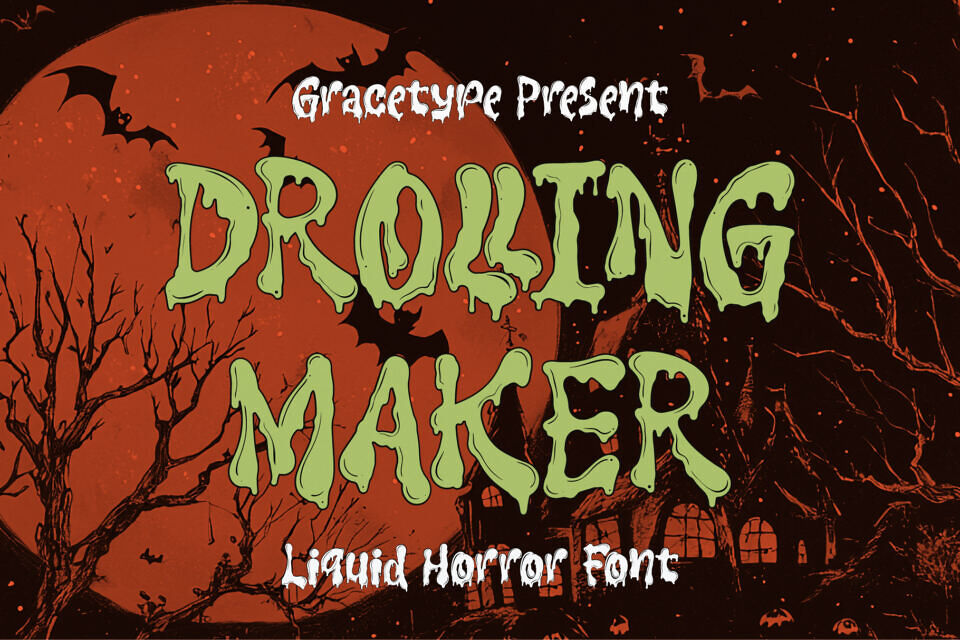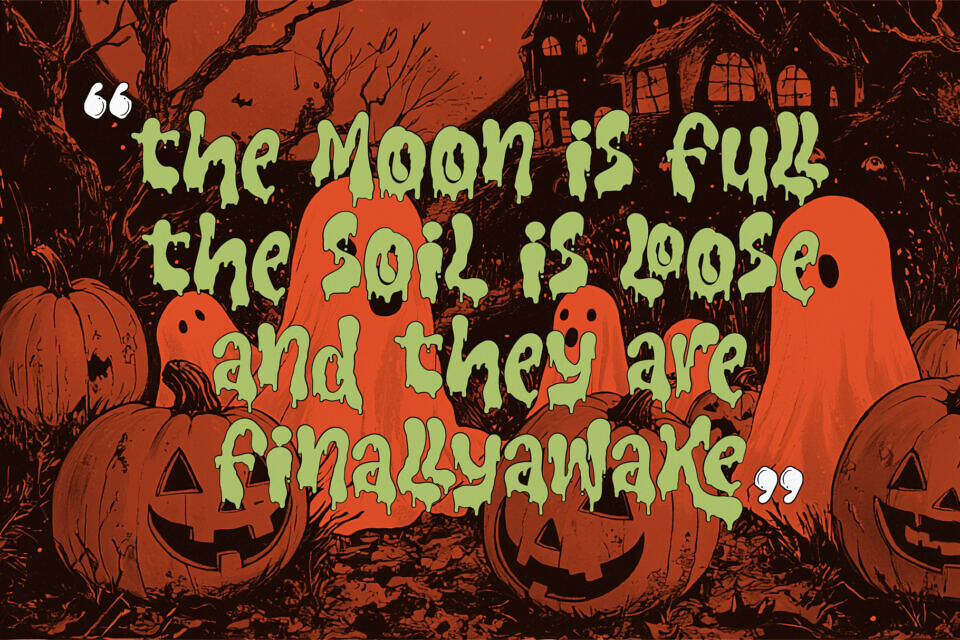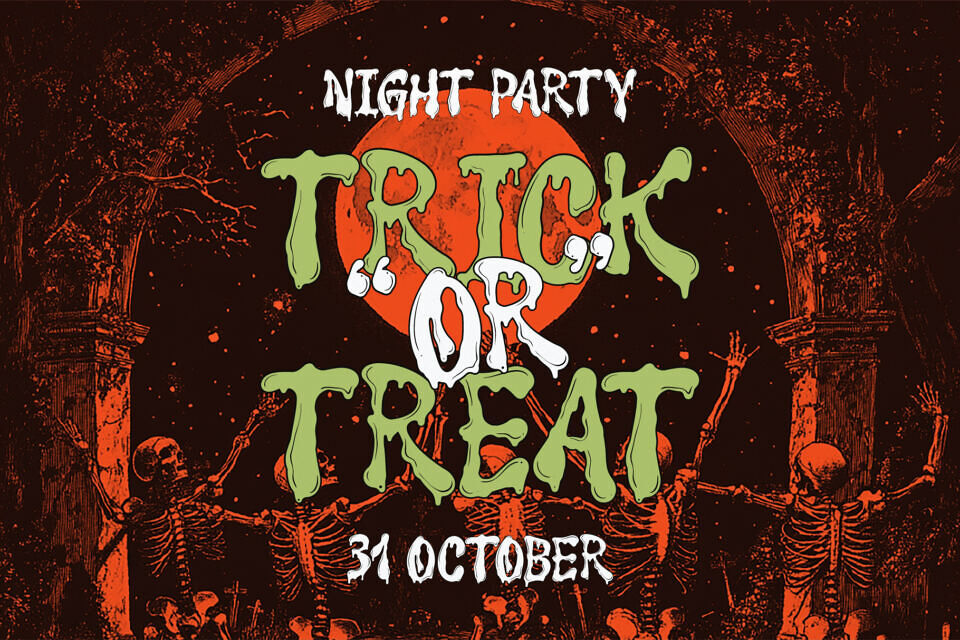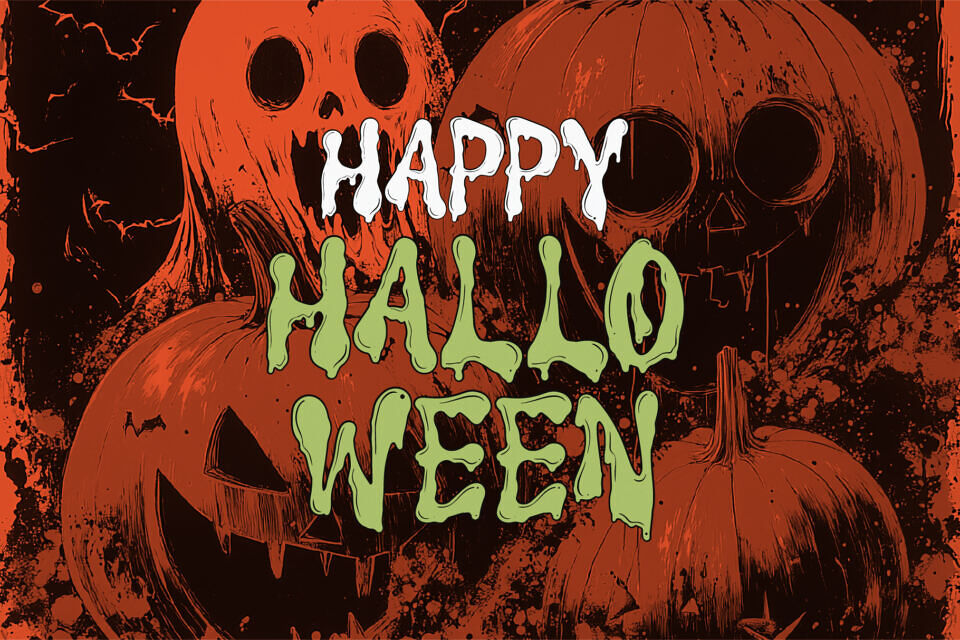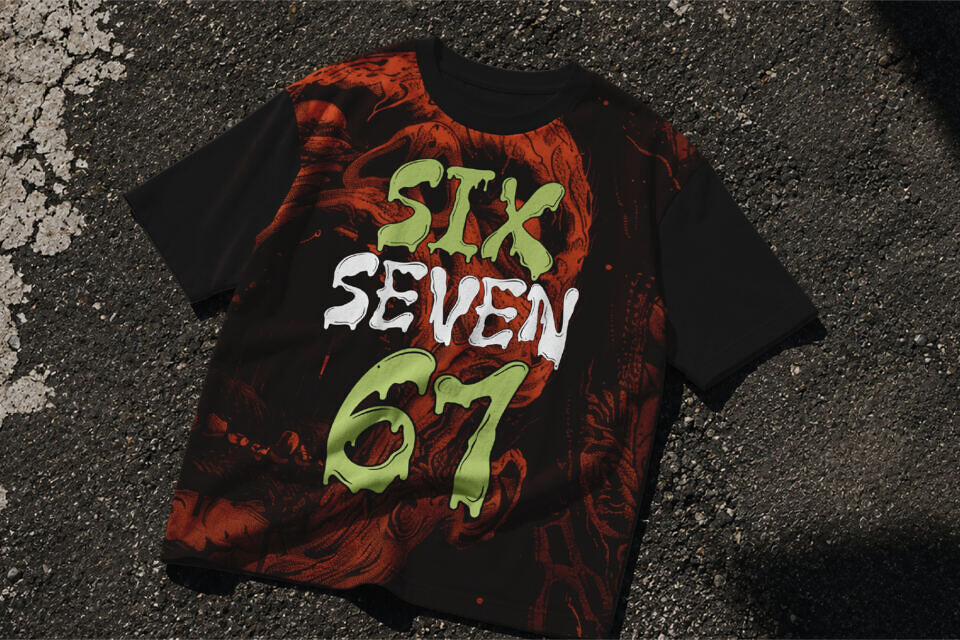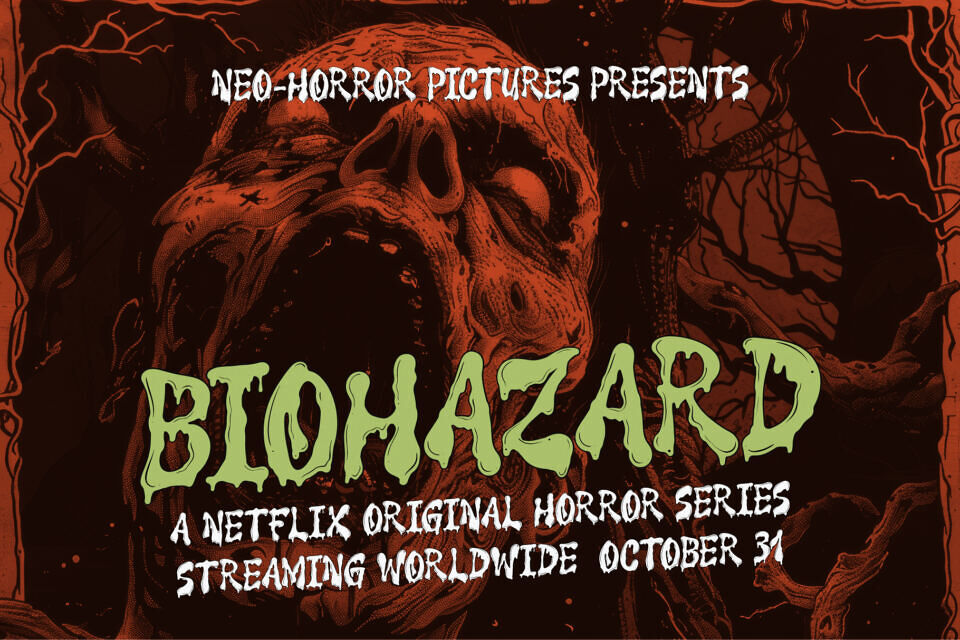
Unleash a wave of spine-chilling drama, supernatural suspense, and eerie nostalgia onto your design projects with Drolling Maker, a premium liquid horror font. This terrifying all-caps alphabet features heavy, melting character structures defined by dripping fluid contours, uneven organic stems, and creepy negative space holes resembling hollow eyes or decomposed texturen.
Drolling Maker is the premier choice for horror movie titles, haunted house attraction posters, alternative streetwear graphics, heavy metal album merchandise, edgy craft beverage packaging, and bold headlines that need an unmissable, ghoulish voice.